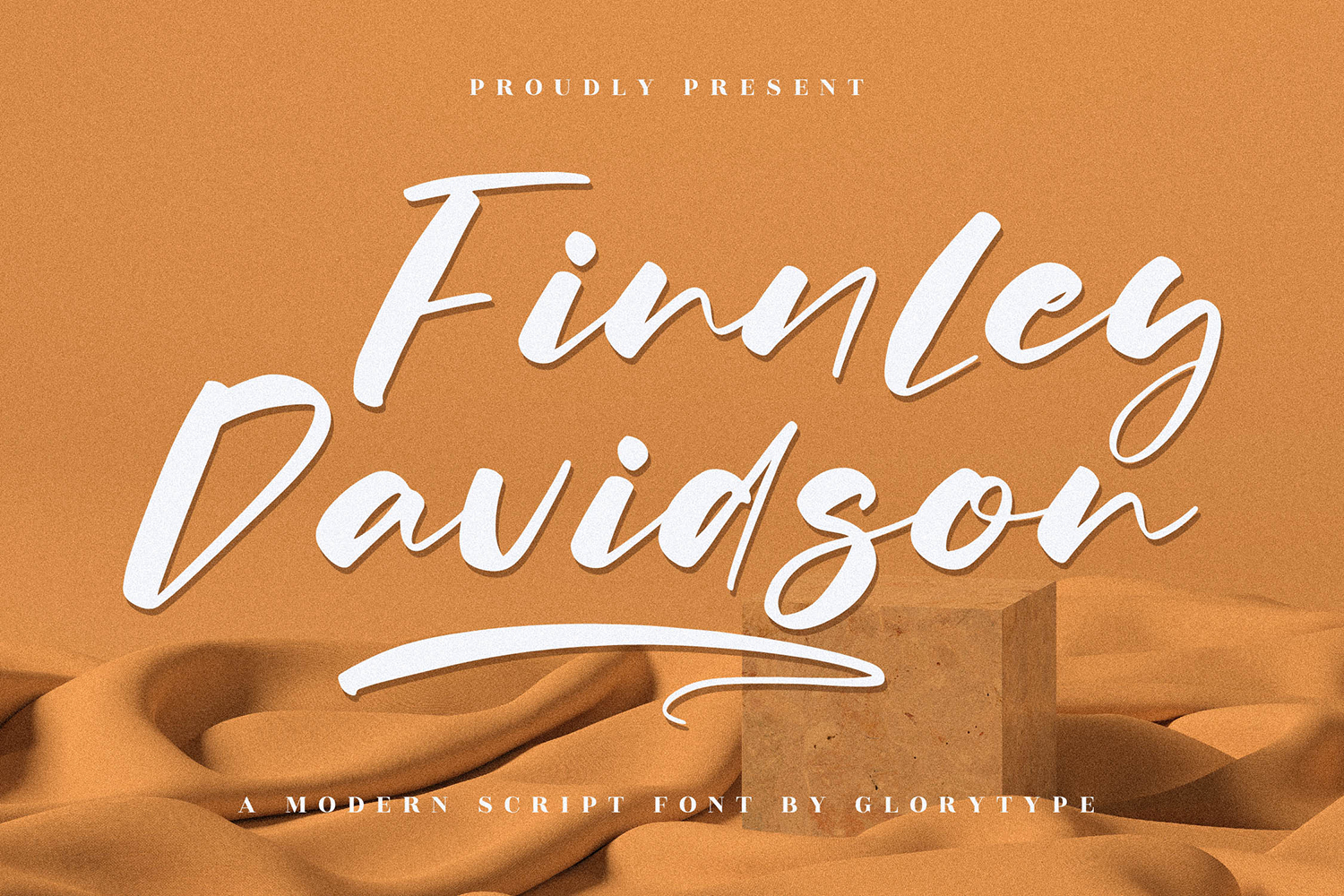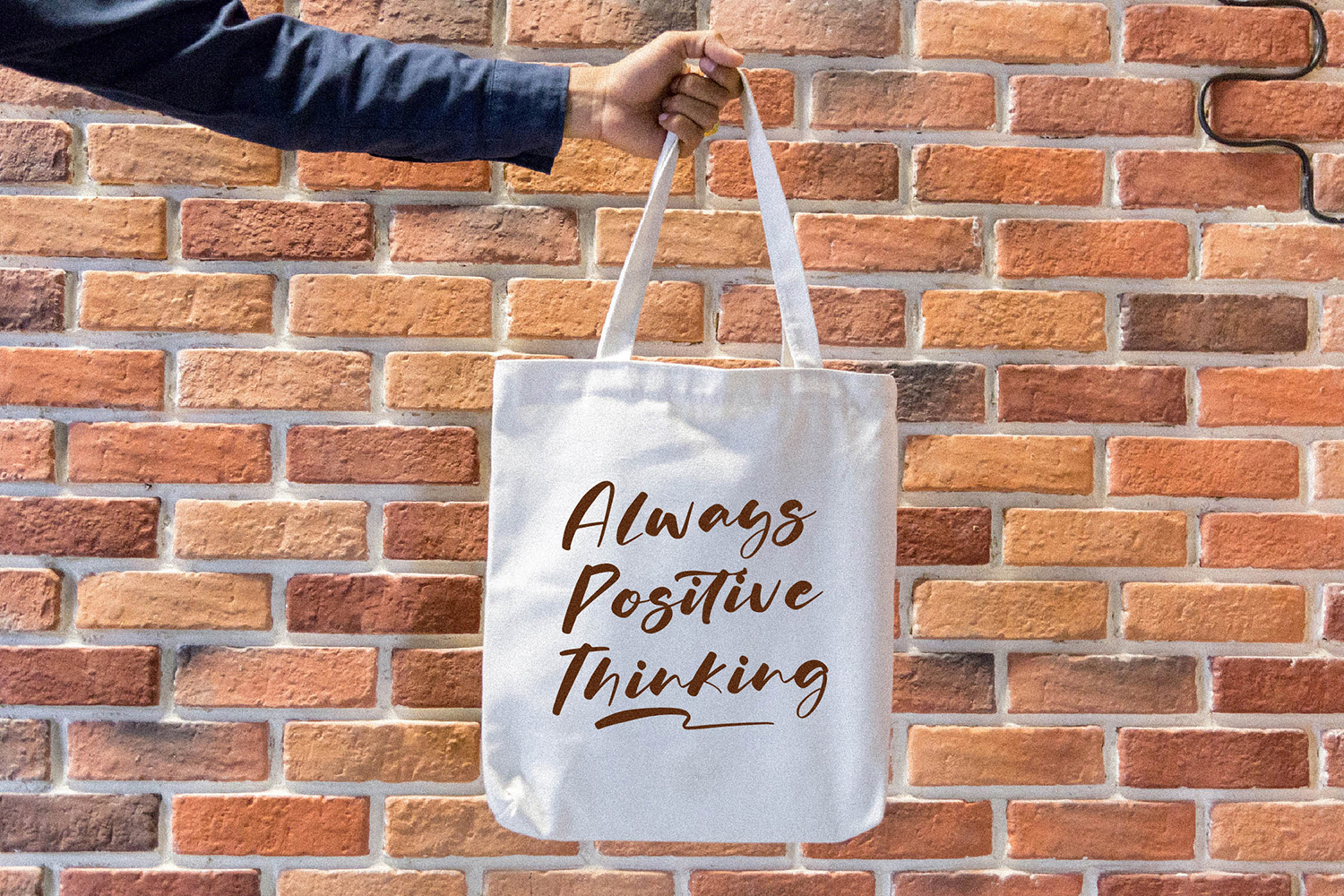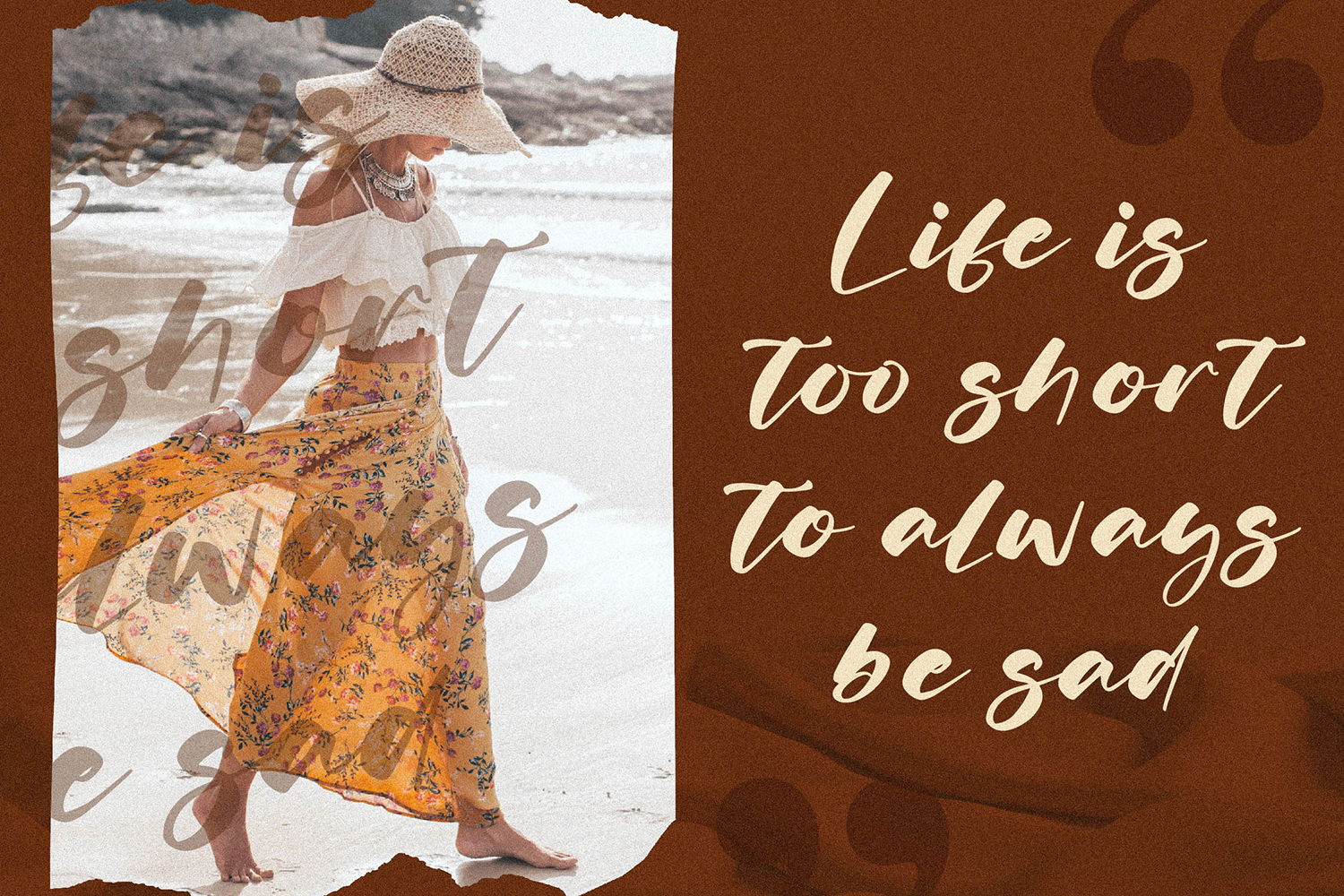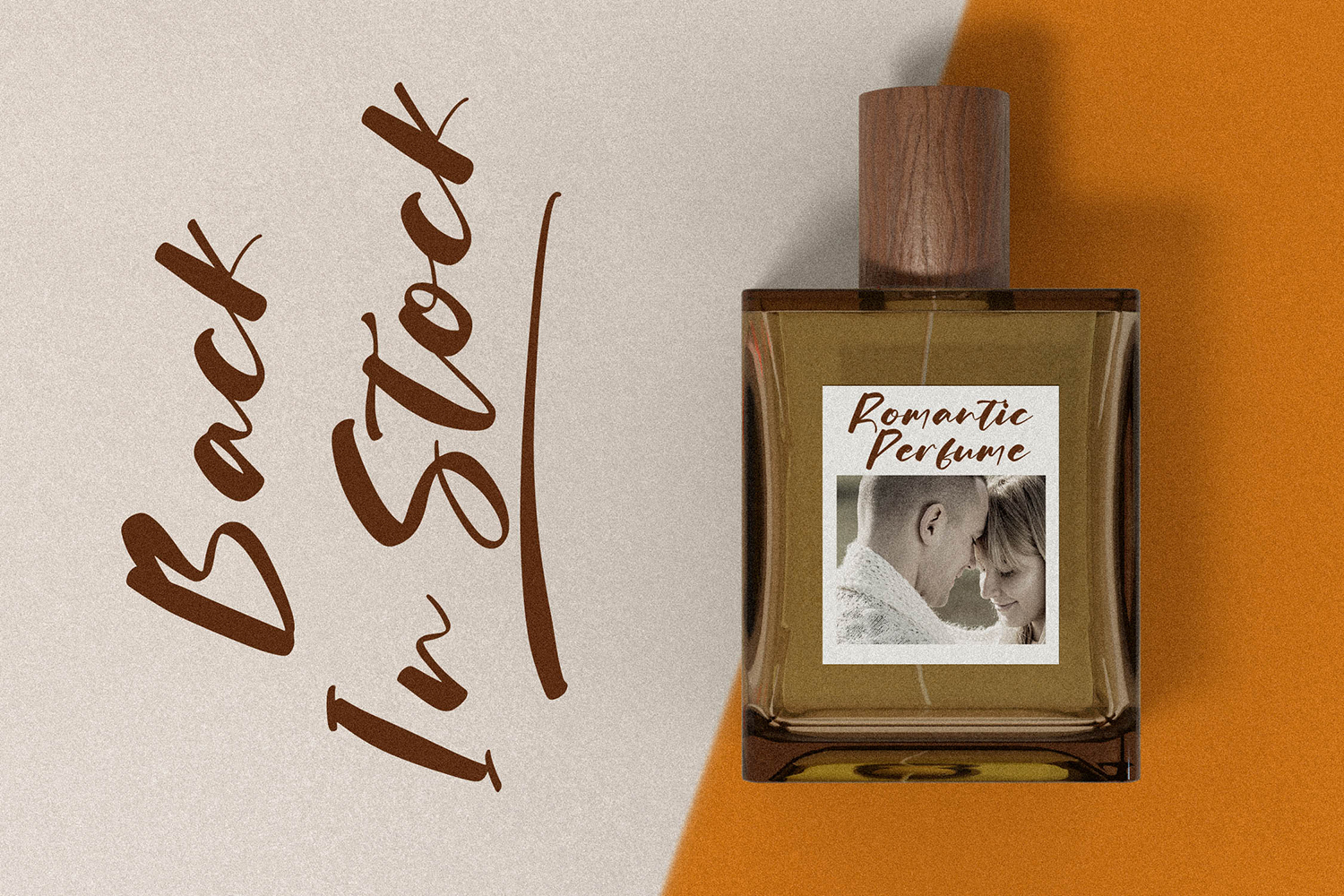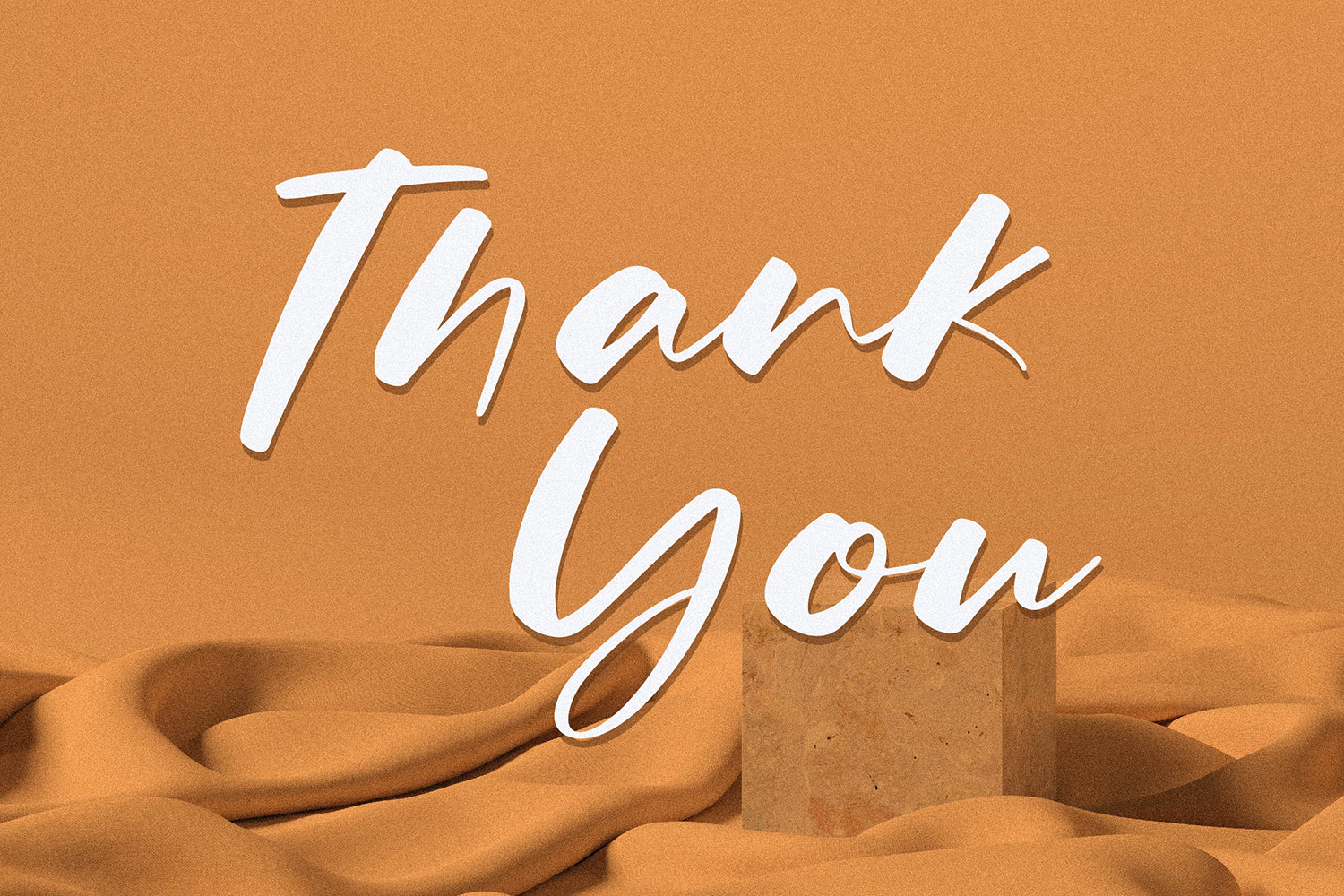
Finnley Davidson Free Font
Finnley Davidson Free Font is a unique and charming handwritten font that captures the essence of a personal touch. With its expressive, fluid strokes and natural hand-written style, this font is perfect for adding a touch of individuality to any project. Whether you’re designing a heartfelt letter, a quirky invitation, or a warm and inviting poster, Finnley Davidson brings a touch of human spirit to your words. This free font is a must-have for anyone looking to add a personal touch to their designs.